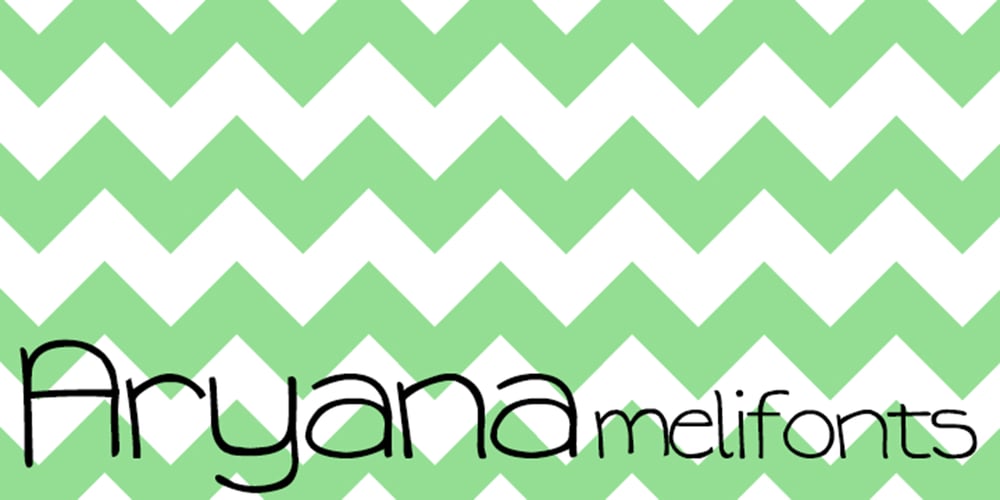
Aryana Font Family was designed by Melinda Jeffs and published by melifonts. Aryana contains 1 styles and family package options. Aryana is young, fresh, and has arrived just in time for the back-to-school season! The perfect typeface for labeling notebooks and putting together poster projects. This handcrafted font is a casual and fun addition to your library.